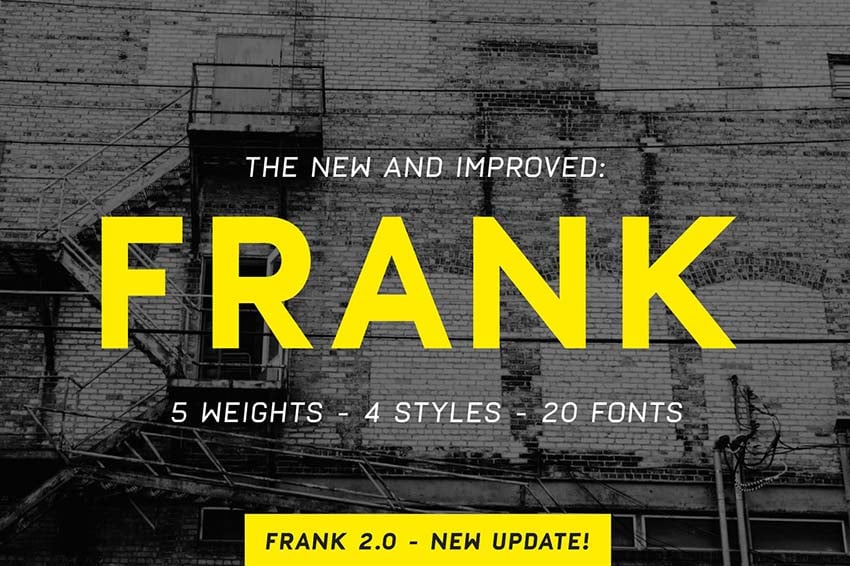
15 Fonts Similar to Eurostile Envato Tuts+
Similar Fonts To Eurostile. It's flexible enough to adapt to. When designers pick ff cube for their work, they probably already have a pretty good idea.
It's flexible enough to adapt to. When designers pick ff cube for their work, they probably already have a pretty good idea. Web anybody is a big family that combines an affinity for eurostile plus a heavy dose of 90s inspiration. Try these free alternatives to eurostile.
Try these free alternatives to eurostile. It's flexible enough to adapt to. Try these free alternatives to eurostile. Web anybody is a big family that combines an affinity for eurostile plus a heavy dose of 90s inspiration. When designers pick ff cube for their work, they probably already have a pretty good idea.